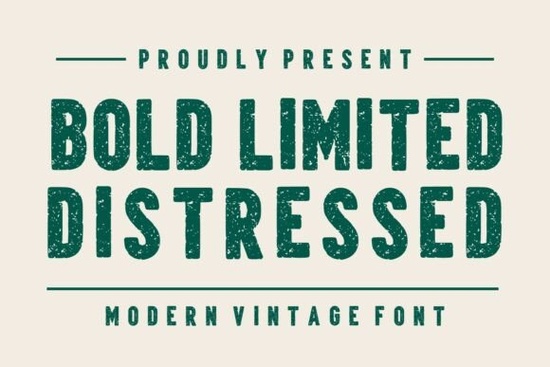
If you're looking for a font that combines bold, modern design with a vintage, weathered feel, Bold Limited Distressed is a great choice. This display font is perfect for designers, crafters, and small businesses who want to add a touch of rugged authenticity to their projects.
Why Choose Bold Limited Distressed?
Bold Limited Distressed stands out because it offers a unique blend of contemporary and vintage elements. The bold, condensed letterforms are balanced by authentic distressed textures, creating a strong visual impact. This makes it ideal for a wide range of creative projects, from logos and t-shirt designs to product packaging and social media graphics.
Perfect for Vintage and Retro Projects
The inspiration for Bold Limited Distressed comes from classic industrial signage, vintage advertising posters, and retro branding. This gives the font a timeless appeal that can add an authentic, handcrafted feel to your designs. Whether you're working on a project for an outdoor brand, a sports team, or a retro-themed event, this font can help you achieve the right look.
Versatile and Readable
One of the key strengths of Bold Limited Distressed is its versatility. The condensed structure allows for strong headlines while maintaining excellent readability across both print and digital media. This means you can use it for large titles, logo designs, and even smaller text without losing clarity. The textured finish adds depth and personality, making every word feel bold and memorable.
Ideal for Multiple Design Applications
Bold Limited Distressed is suitable for a variety of design applications:
- Vintage Branding: Add a rustic, authentic feel to your branding materials.
- Retro Logos: Create eye-catching logos that stand out with a vintage twist.
- T-Shirt Designs: Perfect for apparel graphics that need a bold, handcrafted look.
- Product Packaging: Enhance your packaging with a unique, vintage aesthetic.
- Merchandise Graphics: Use it for promotional items like mugs, stickers, and more.
- Sports Branding: Ideal for sports teams and events that want a strong, vintage vibe.
- Automotive Projects: Great for automotive graphics and branding with a rugged, classic feel.
- Outdoor Brands: Perfect for outdoor gear and branding that needs a bold, adventurous look.
- Advertising Posters: Create impactful posters that grab attention with a vintage touch.
- Social Media Graphics: Use it for social media posts that need a standout, vintage style.
- Labels & Signage: Add a unique, handcrafted feel to your labels and signs.
How to Use Bold Limited Dist distressed in Your Projects
Here are some tips on how to effectively use Bold Limited Distressed in your designs:
- Combine with Clean Fonts: Pair it with clean, simple fonts to create a balanced and visually appealing design. For example, you might use Groovy Style Font for a more playful, yet still readable, secondary text.
- Experiment with Colors: Try using different color combinations to highlight the distressed texture. Darker colors can make the texture more pronounced, while lighter colors can give a softer, more subtle effect.
- Use for Large Titles: The bold construction of Bold Limited Distressed makes it ideal for large titles and headings. It ensures visibility and creates a strong focal point in your design.
- Add Texture to Backgrounds: Consider adding a complementary texture to the background to enhance the overall vintage feel. This can be anything from a subtle paper texture to a more pronounced, worn-out look.